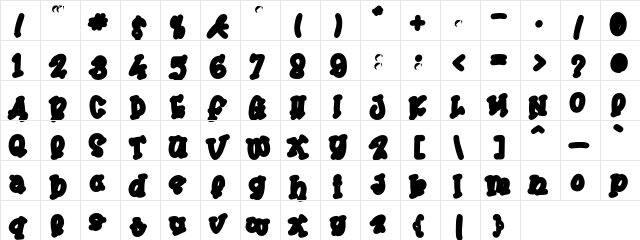
Mister Clown Cntr Regular
Design Context for Mister Clown Cntr Typeface
Mister Clown Cntr is a composed and adaptable typeface that performs quietly and consistently across a wide range of design contexts.
Pro Tip: Use Mister Clown Cntr in both headline and body roles to test its range before committing to a single application.